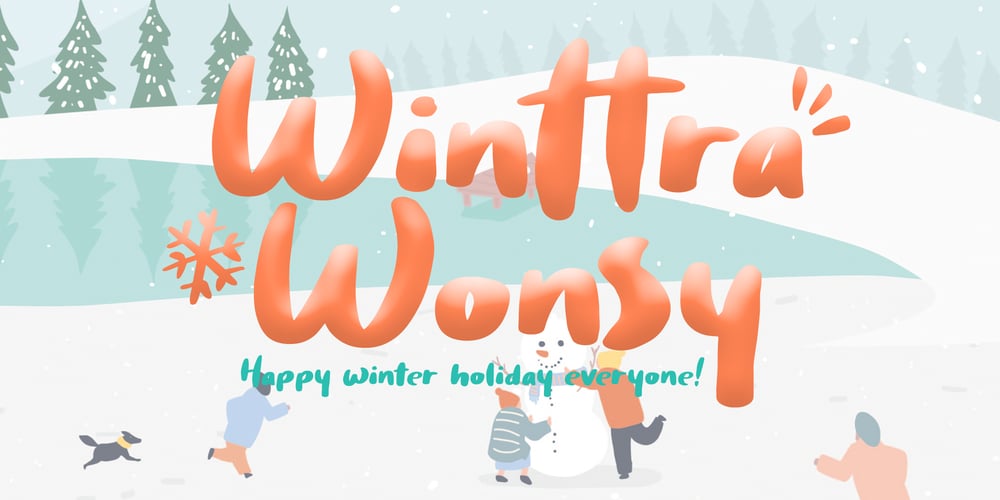
Winttra Wonsy Font Family was designed by Yean Aguste and published by HandletterYean. Winttra Wonsy contains 4 styles and family package options. Winter is coming and Winttra Wonsy is here to celebrate it. Winttra Wonsy is a perfect addition to make your holiday and winter more exciting. Feel free to use it for any craft work, book cover, name card, poster, logo, magazine, cover, banner, t-shirt, or even artwork in a large scale.